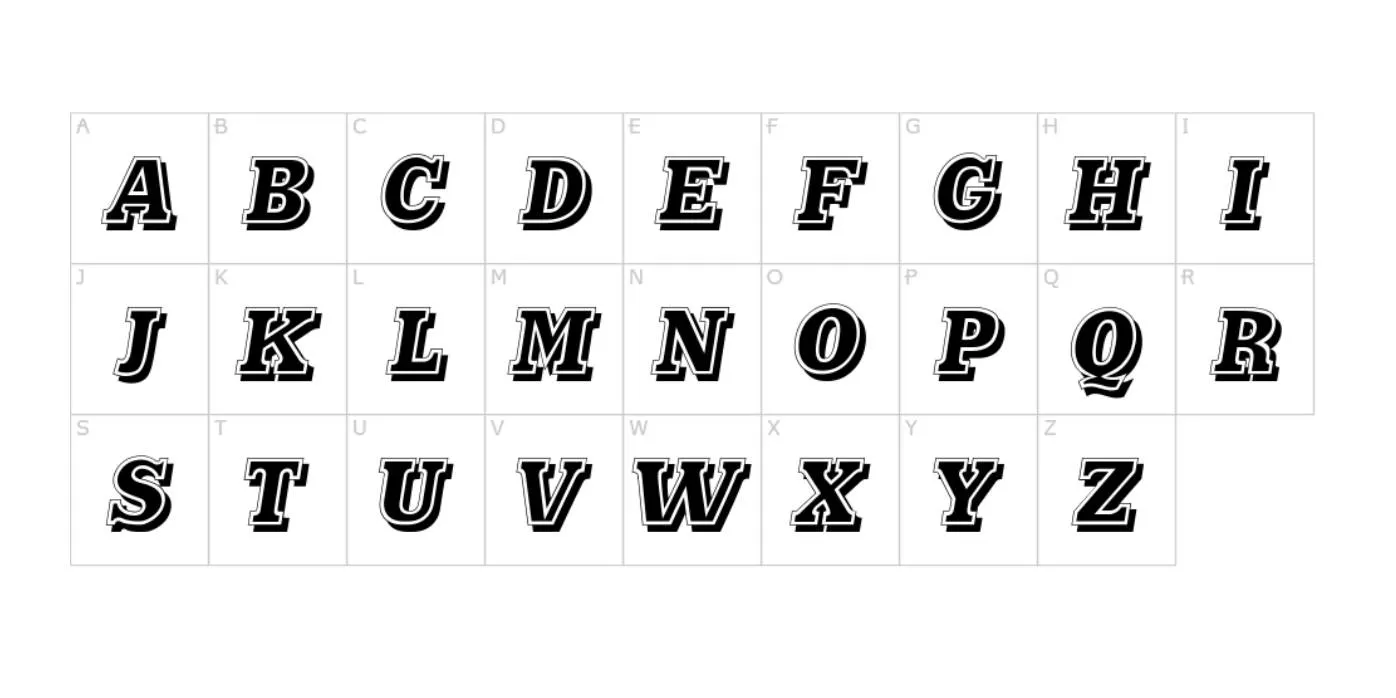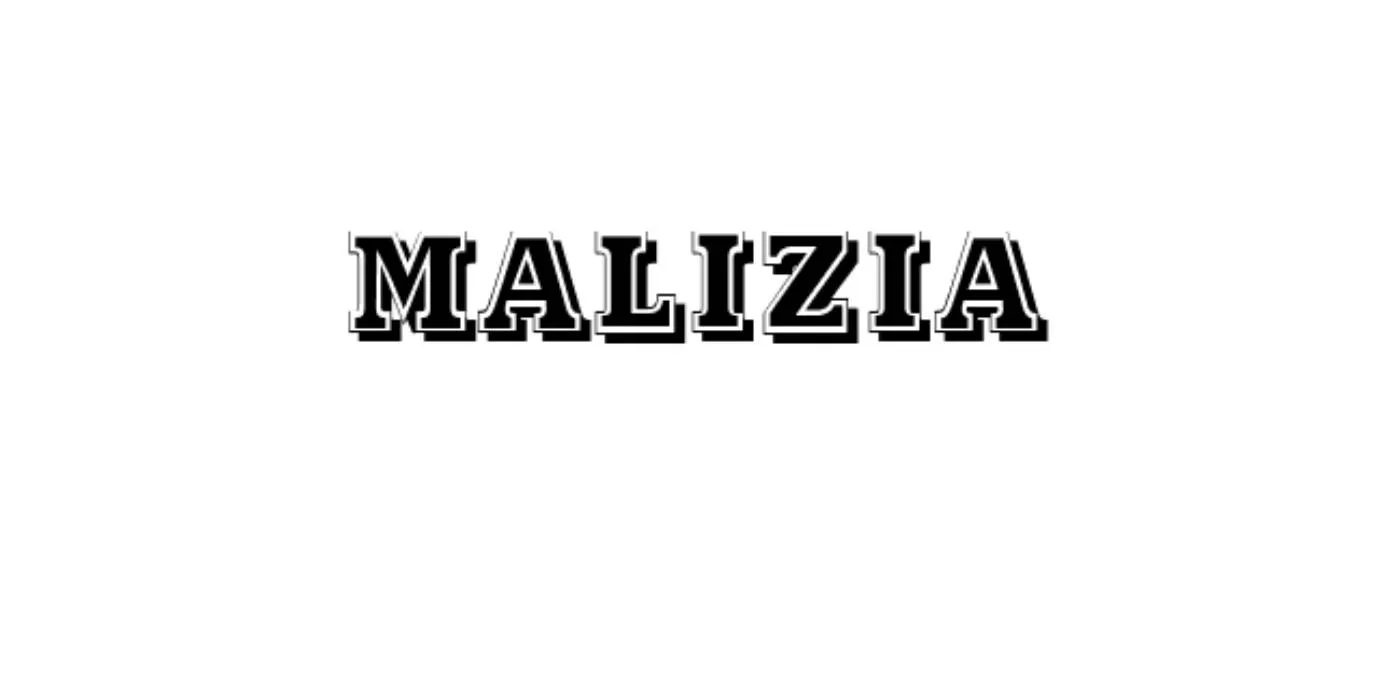
Malizia Font
Vladimir Nikolic is the designer of this basic type of font. Malizia Font is a basic type of font. You can use this typeface in a lot of projects and designs. There are two styles for this fantastic font.
They are regular and italic. The characters of this texture are bold and highly readable. You can use this font on many valuable projects and designs. The typeface that is best for pairing with this texture is the johnny pistolas font.